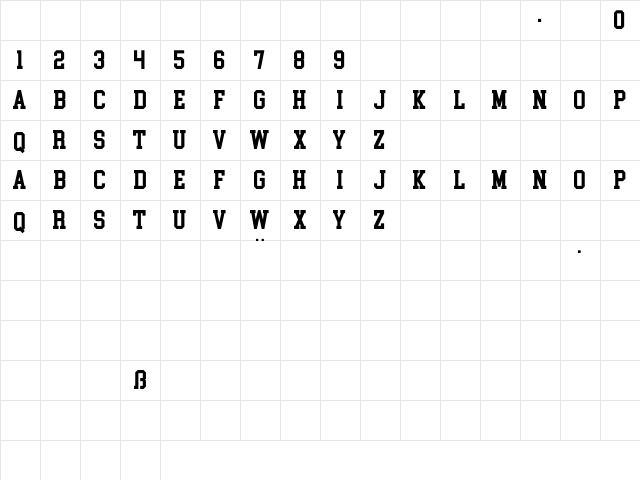
College Block 2.0 Regular
Design Context for College Block 2.0 Typeface
College Block 2.0 has the bold swagger of sports branding: strong, assertive letterforms designed to dominate headlines and jerseys alike.
Built for sports team identities, athletic apparel, event posters, and high-energy promotional material.
Pro Tip: College Block 2.0 thrives on contrast — try it large, bold, and tight against a clean background for maximum visual impact.